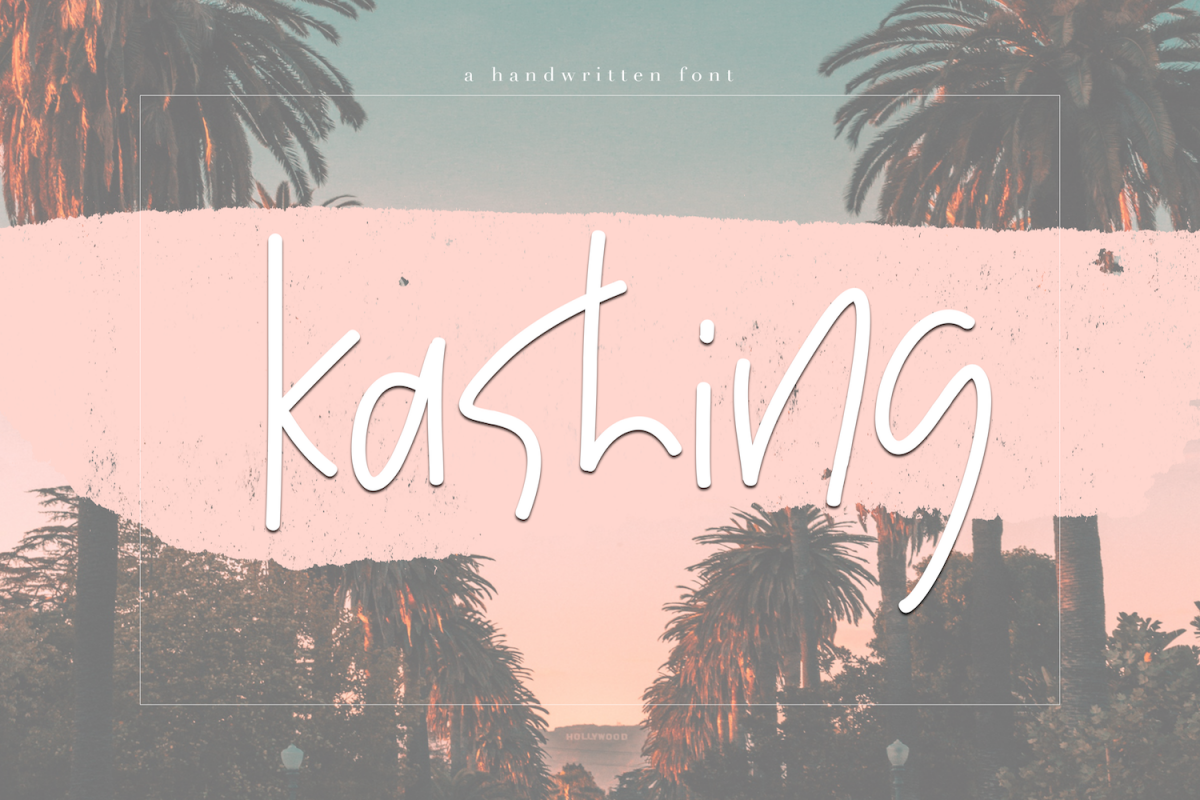
Kashing - A Chic Handwritten Font
Kashing
Kashing is a chic handwritten font.
This font is perfect for quotes, headings, blogs, logos, invitations and more!
This font *does* include accent characters.